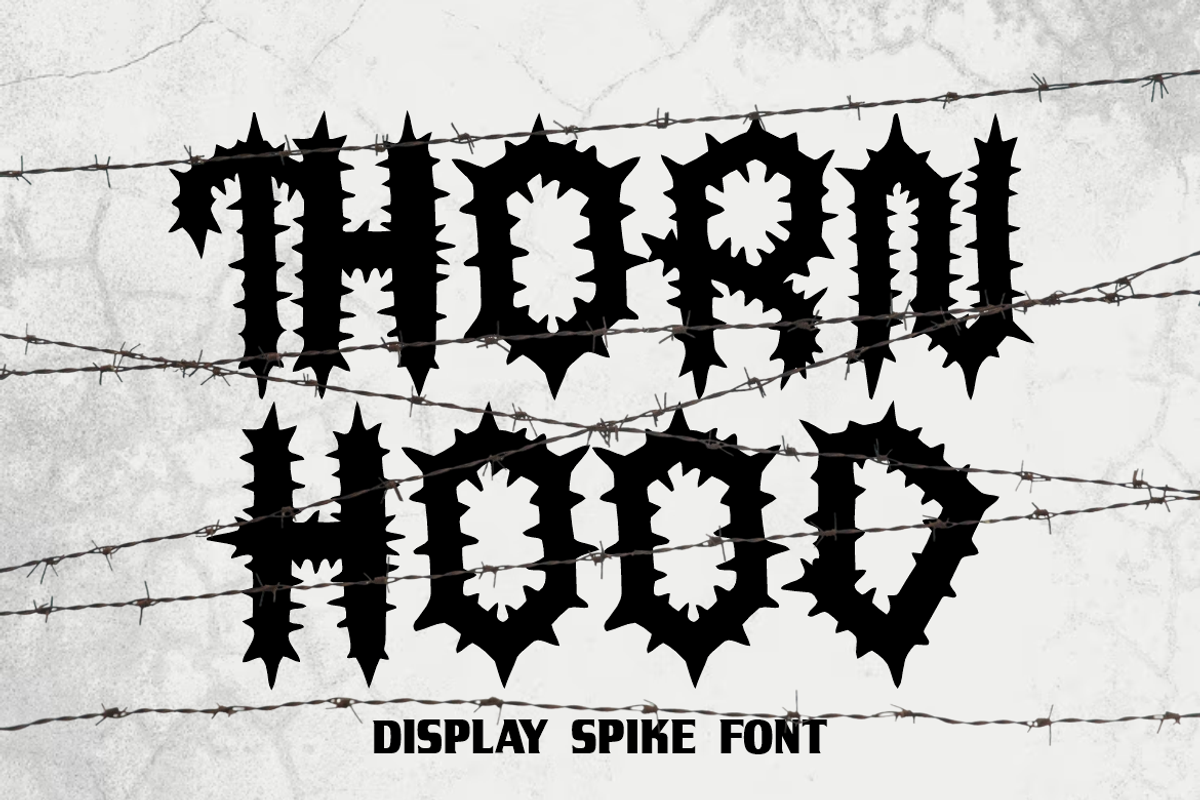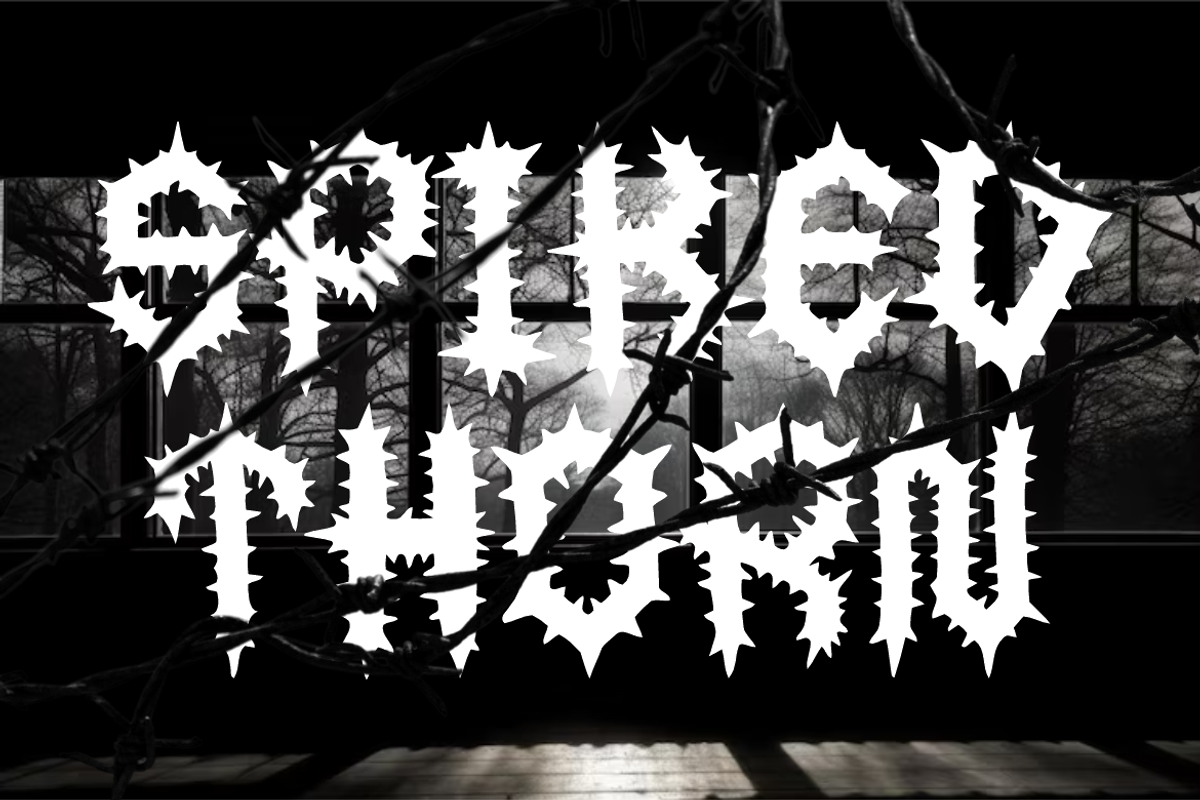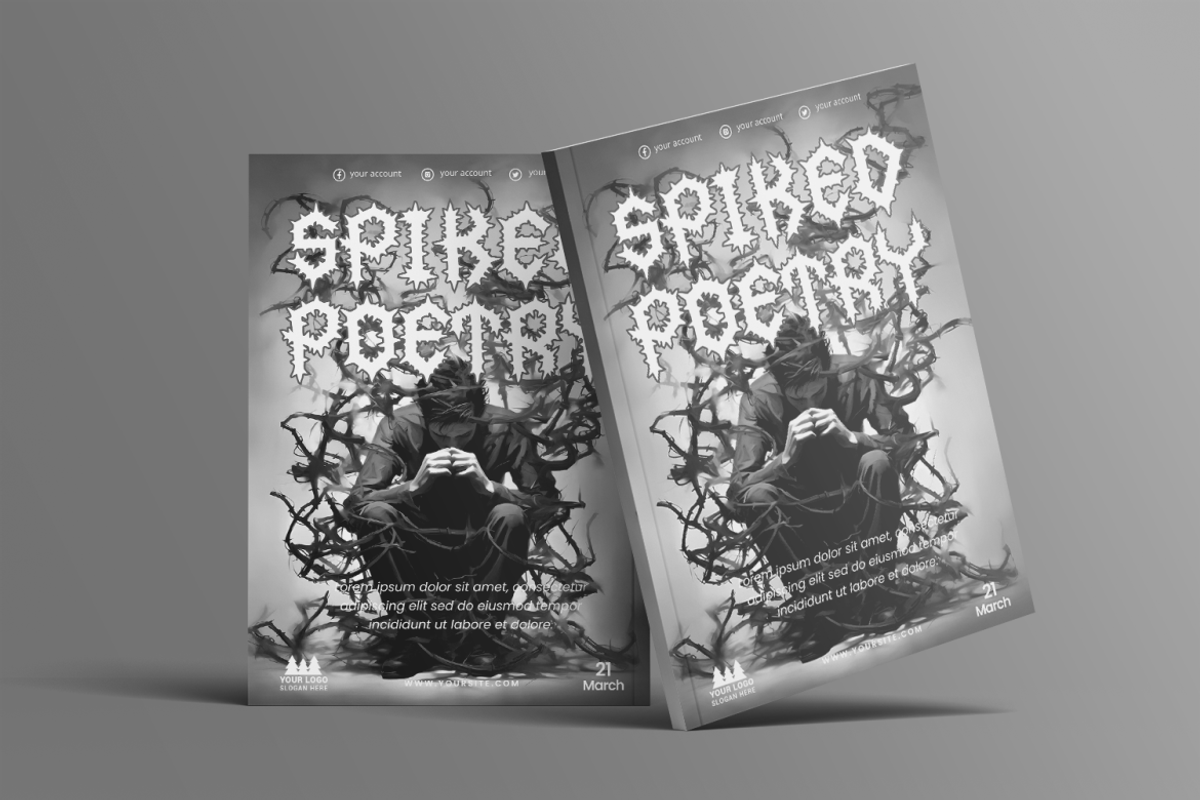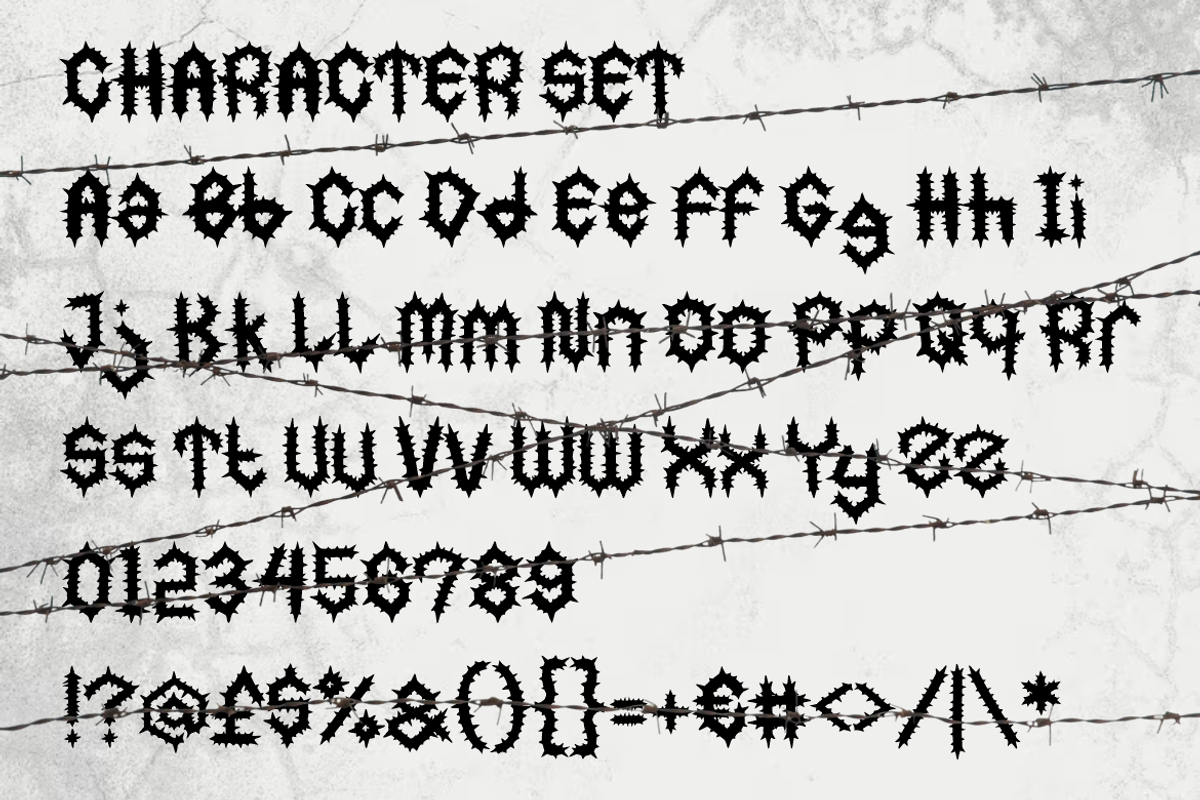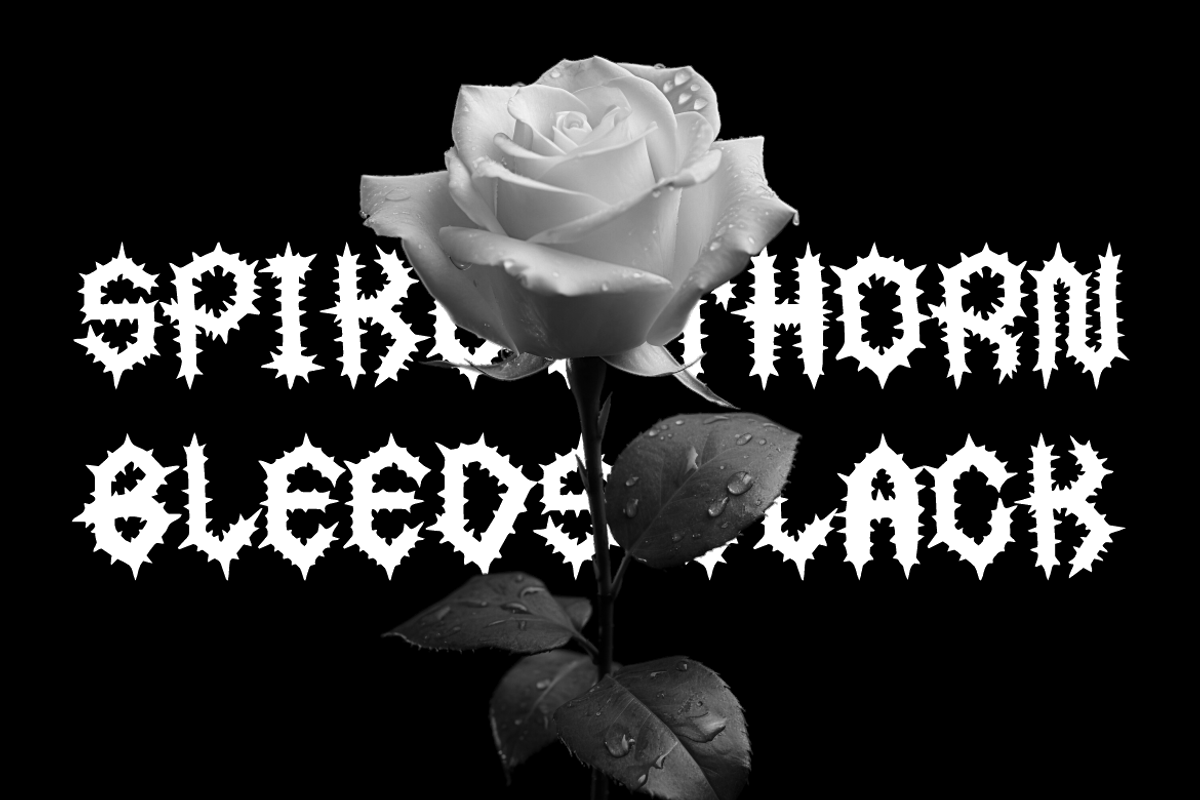
Thornhood Spike Font
Thornhood Spike Font is a striking fusion of gothic brutality and spiked aesthetics, crafted for bold, unapologetic design statements. Each letterform is constructed with sharp, thorn like extensions—reminiscent of barbed wire and dark botanical motifs. The high contrast structure and consistent vertical stress give the font a blackletter inspired foundation, while the irregular edges break the traditional mold. Its unique silhouette commands attention, making it ideal for edgy branding, dark themed merchandise, underground music promos, and expressive title displays.
This font thrives in high impact layouts—on posters, book covers, album art, or packaging design—especially within horror, thriller, or punk subcultures. The letter spacing is carefully balanced to keep legibility intact while maximizing visual aggression. Whether it's for streetwear branding or spiked poetry zines, Thornhood injects raw emotional power into every composition. Designers seeking a font with attitude and rebellion will find Thornhood both functional and unforgettable.